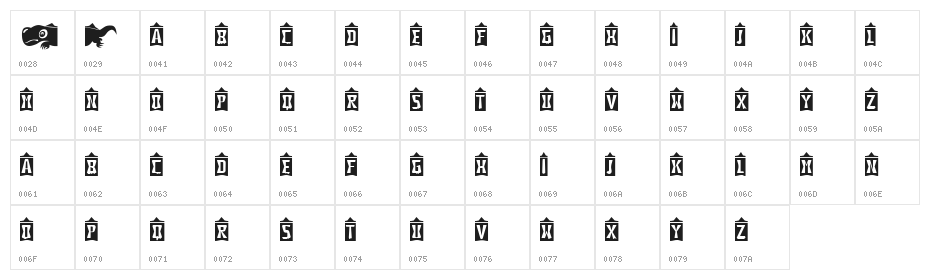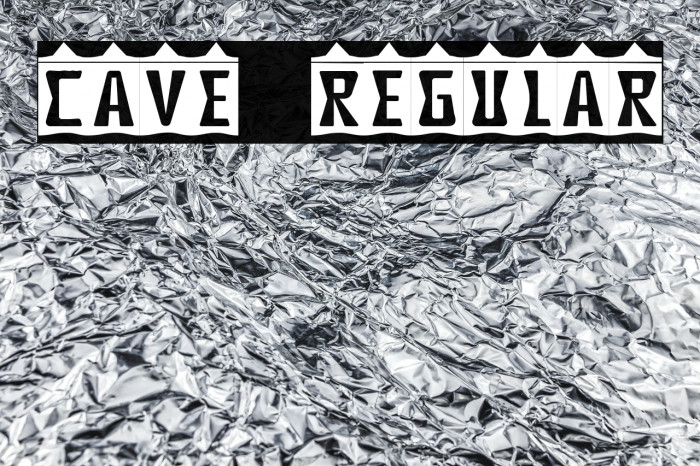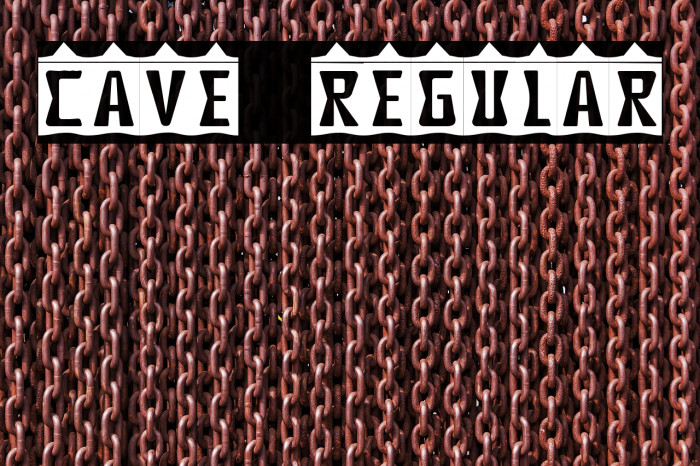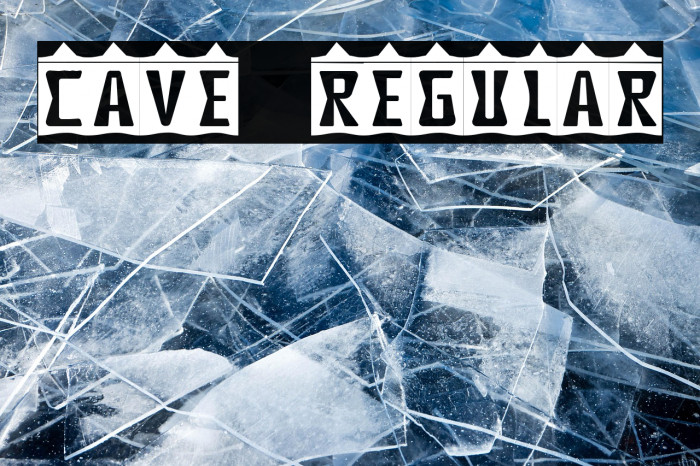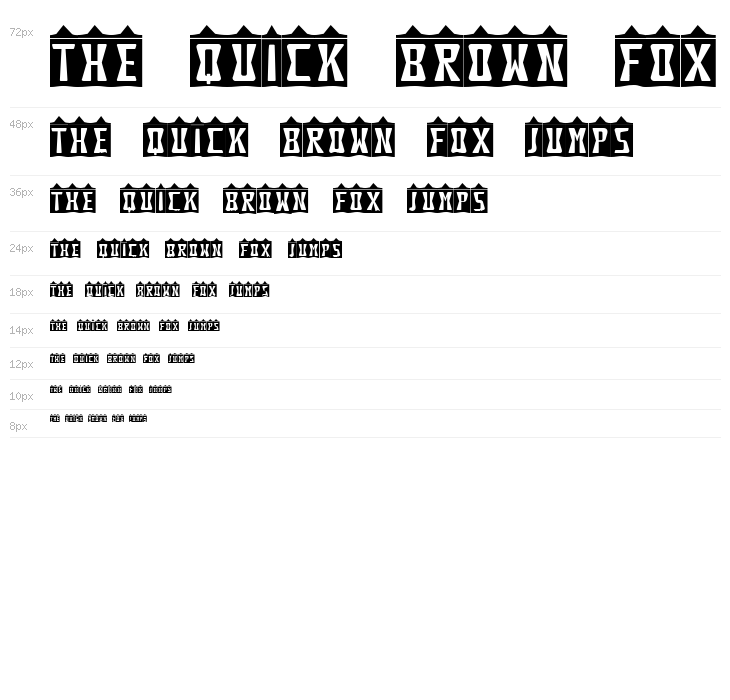
Cave Regular Font
This font features a bold and striking design with a unique, angular style. Each character is enclosed in a box, giving it a distinct, block-like appearance. The letters are characterized by sharp edges and pronounced angles, creating a sense of movement and energy. The overall look is both modern and slightly retro, reminiscent of vintage signage or posters. The font's boldness makes it highly legible and impactful, suitable for attention-grabbing headlines or titles. Its decorative nature adds a playful and artistic touch, making it ideal for creative projects.
| Overall Style | Modern, Vintage |
| Proposed Projects | Ideal for posters, logos, branding, and any project requiring a bold, artistic statement. |